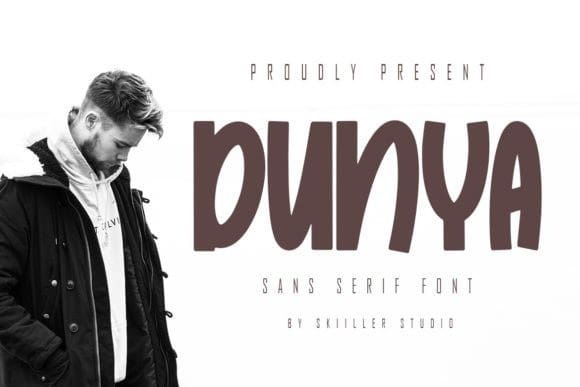
Dunya Display Font
Dunya Display Font – Playful sans serif font. It has a elegant, classy look and modern. It’s a great font for fashion, signature, logo, magazine, social media.